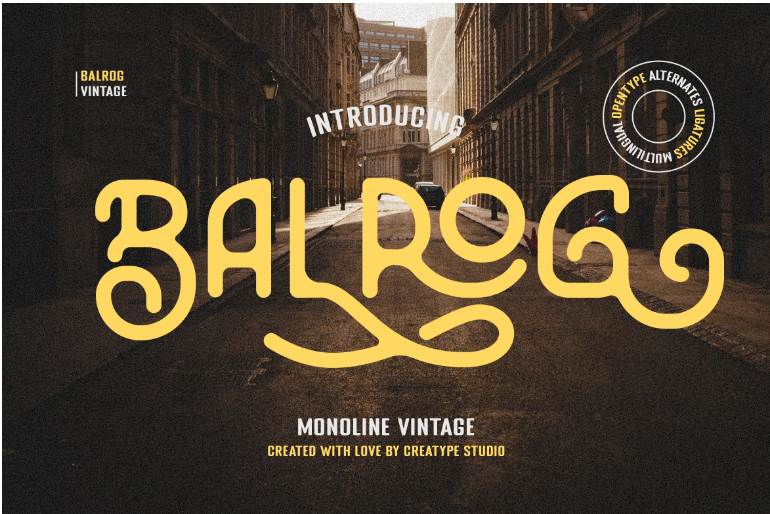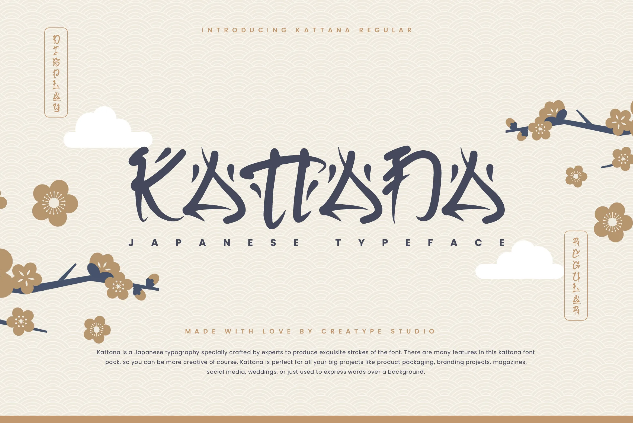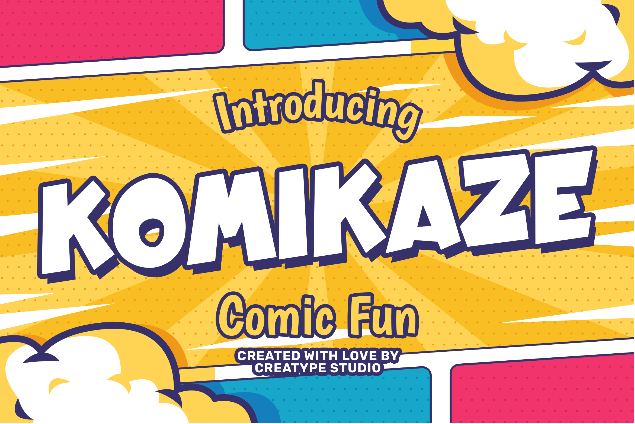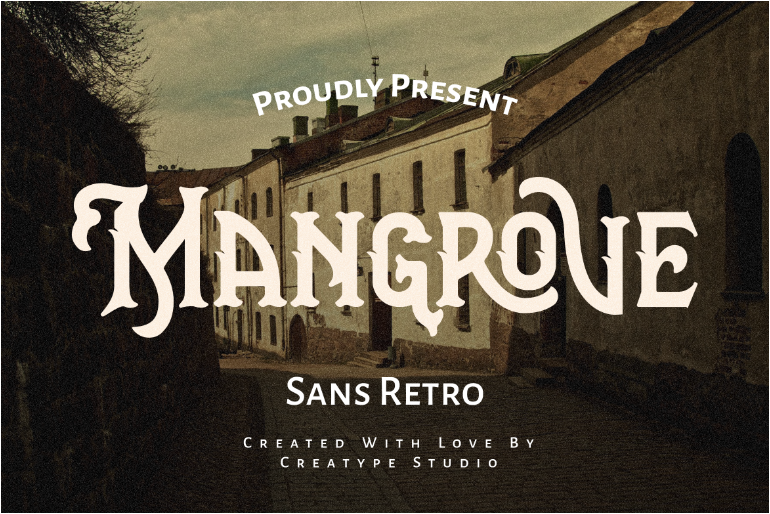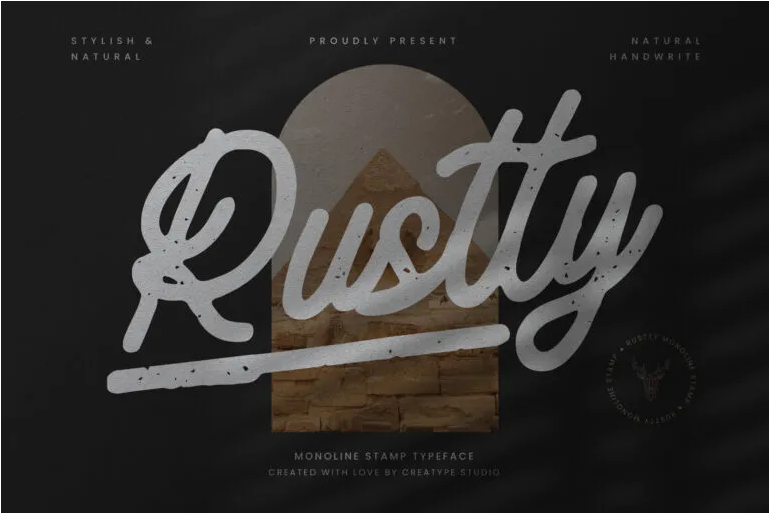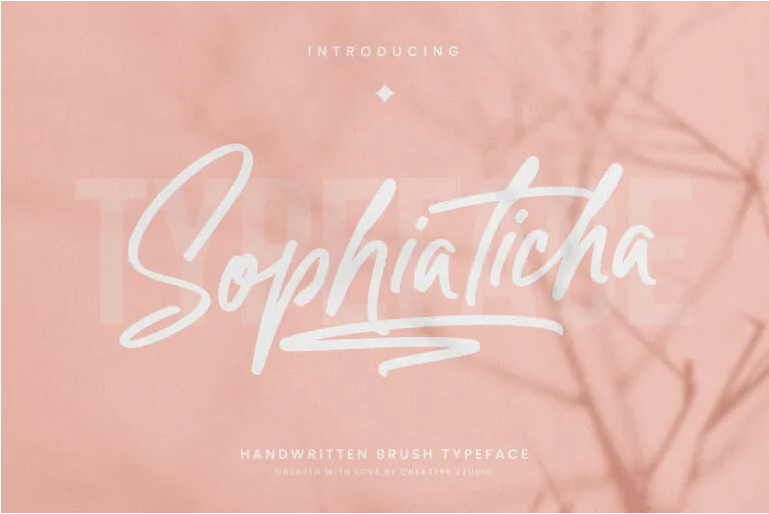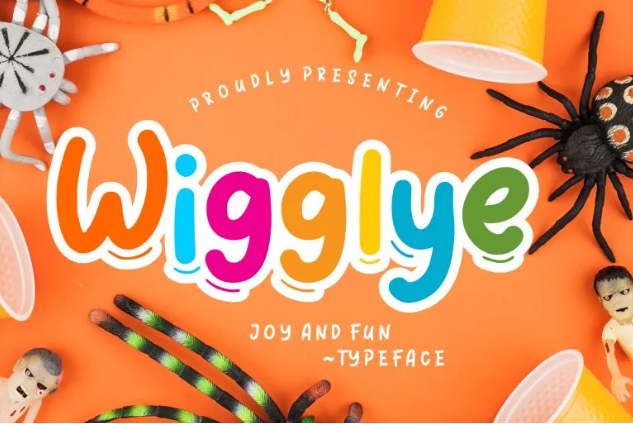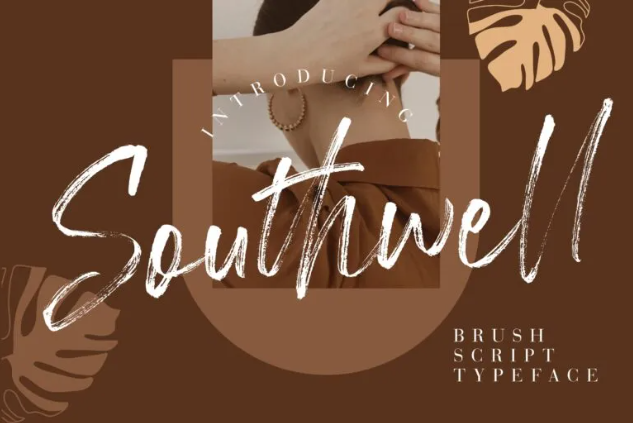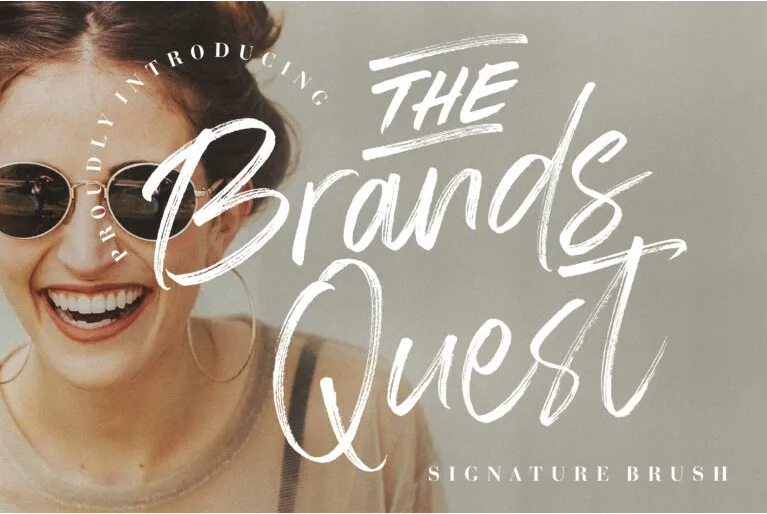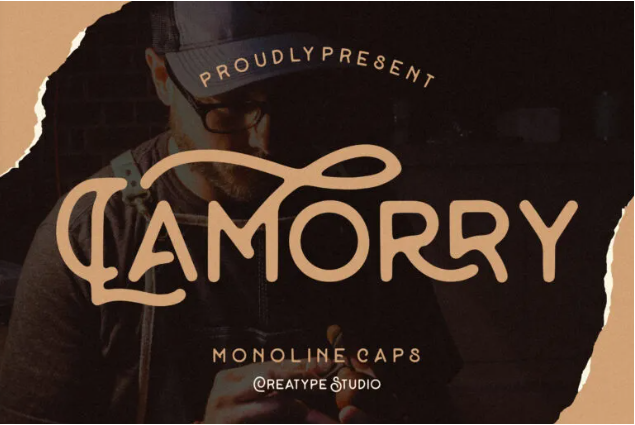
5. Best Fonts for Procreate Project: 15 Fonts That You Can Use
Gather around artists and designers! This is the particular article that you want. A font recommendation of the readable fonts for Procreate. It’s not just the designs, the font is also the most essential part of conveying your work. So, let’s look at our best fonts for Procreate project on the compilation below!
15 Best Fonts for Procreate
Below are 15 fonts that will make your designs complete.
1. The Brands Quest
The Brands Quest
Let’s begin with The Brands Quest, a signature brush font. As a brush font, it’s easy to incorporate with this font into a wide range of projects. With a bit of color matching, the font can project a serious, fresh, vintage, or even fashionable atmosphere.
2. Rustty
Rustty
Just like the name suggests, Rustty is rusty. This monoline stamp typeface is bold and always stands out. Rustty is not just cool, but it’s also elegant with script-style writing.
3. Sophiaticha
Sophiaticha
If you aim to show a feminine, young, and independent vibe in your projects, try Sophiaticha. This handwritten brush typeface is so sophisticated, you can radiate your ideas more easily with it.
4. Balrog
Balrog
Balrog is the fascinating font for Procreate if you need to make vintage designs. It’s marvelous in yellow, and what other font looks great in yellow except this one? The font is a monoline type. It is bold, strong, and masculine, but you can explore the ligatures and alternates to add more movement.
5. Mangrove
Mangrove
Another font for your vintage project is Mangrove. This one is classy. It is a sans font with a retro look. Every letter in this font is so full and loud. Mangrove also brings a masculine vibe and claims to be a mysterious typeface.
6. Western Wildler
Western Wildler
What’s wild? It’s Wertern Wildler partners. You already know what this font is suitable for. It is a slab and vintage font. Currently, your best font for Procreate if you need a piece of Wild West in your project.
7. Harllem
Harllem
Another vintage font, but this one hit different. Harllem is a display vintage font. Harllem is cool, it’s perfect for automotive designs or to bring some vintage vibe to a music-related project. Be careful though Harllem is bold, so you might need to loosen up a bit.
8. Lamorry
Lamorry
Lamorry has a vintage vibe in it, but also a modern look. The font is a monoline caps font. It’s suitable for clothing design, logos, and many more. Lamorry is mostly masculine, but you can see the elegance in there.
9. Mallorie
Mallorie
Mallorie is a young, catchy, and elegant font. It is the gorgeous font for Procreate if you need a handbrush font. Mallorie is robust, stylish, and fun for any project. It is perfect for fashion projects, culinary, or even cosmetics.
10. Southwell
Southwell
Southwell promotes so much beauty. It is a brush script typeface font. Using a thinner touch in the movements, Southwell highlights the beauty of the scratch effect. It’s perfect to pair with cosmetics designs, photos, and many more.
11. Komikaze
Komikaze
Kaboom! Pow! It’s Komikaze. This eleventh rank is a comic sans font. This creative typeface font can bring out so much energy. You can use the font as a fun collaboration in kids’ designs, your product sales, and many more. Have fun with it!
12. Megaloman
Megaloman
Megaloman is a stylish brush marker font. Unlike the regular brush font, a marker one looks stronger. Megaloman is equipped with the ligatures and alternatives to make your design unique. Not to mention the swashes to add emphasis to your work.
13. Wigglye
Wigglye
Wigglye is the best font for Procreate if you work on kid’s designs. The font is fun and joyful, plus it gives you a handwritten taste. Try using different colors in each letter just because you can.
14. Rockfull
Rockfull
Rockfull is a capital brush font. Unlike other brush type that has smooth movements, Rockfull has strong brush strokes. It only uses uppercase letters so you can be sure your extravagant title would be seen.
15. Kattana
Kattana
Kattana is a specially crafted font to match Japanese-style designs. It allows you to experience the exquisite strokes of Japanese calligraphy into alphabet letters. You’ll get a lot of options in the pack to experiment with your inner Japanese.
Well, There You Have Fonts for Procreate